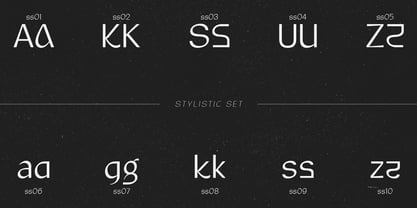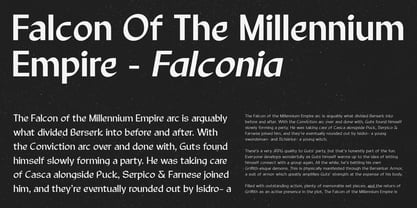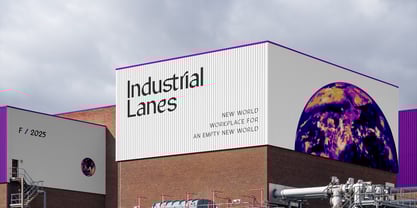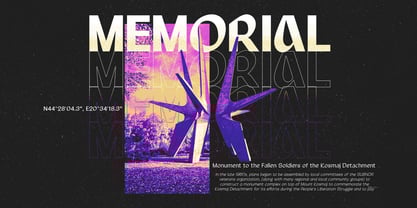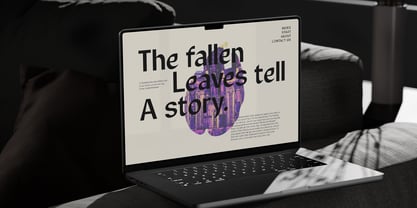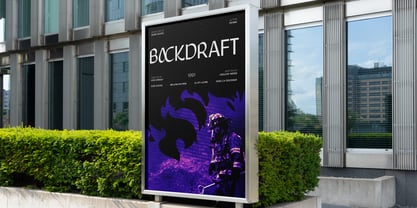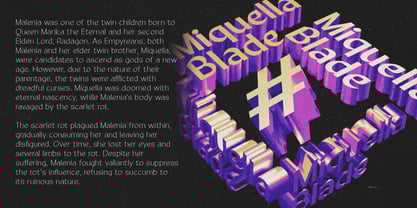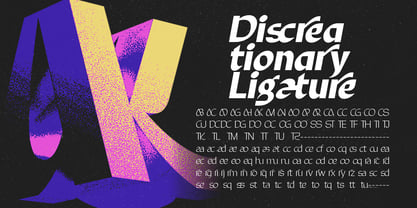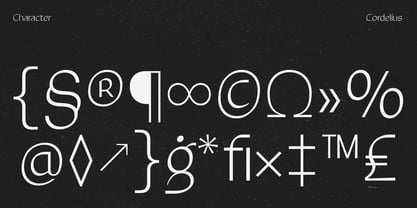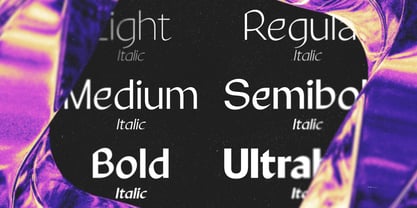
JHC Cordelius
by Jehoo Creative
The JHC Cordelius Font Family was designed by Anwar Patihan and published by Jehoo Creative. JHC Cordelius contains 12 styles and family package options. More about this family
JHC Cordelius is a bold, no-nonsense showpiece typeface rooted in the principles of brutalist design. With its heavy, angular structure, Cordelius embodies a bold industrial sensibility and an uncompromising presence.
Crafted to make an impression, this font features distinctive alternates and ligature that add variety while reinforcing its stark architectural style. These features inject just enough irregularity to keep the composition visually interesting without sacrificing the rigid aesthetic core.
Perfect for editorial layouts, posters, branding, and digital interfaces that aim to challenge convention, JHC Cordelius brings typographic power with a brutalist edge.